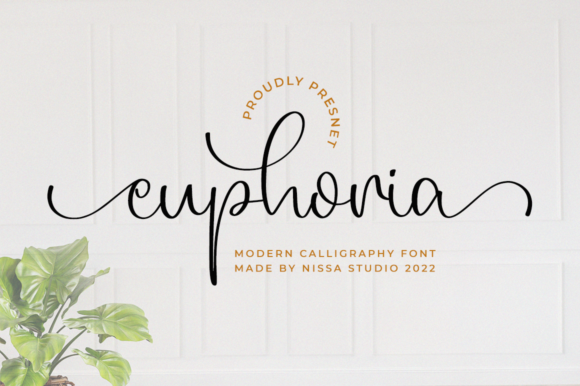
Euphoria Font: Elevate Your Designs with Elegance and Sophistication
In the world of typography, few fonts manage to strike a balance between elegance and distinctiveness. Euphoria Font is one such gem that has captured the hearts of designers and crafters alike. This beautiful, handwritten font is perfect for adding a touch of sophistication to various design projects, from wedding invitations to business cards. In this article, we’ll dive into the features and benefits of Euphoria Font, and explore how it can elevate your designs.
The Beauty of Euphoria Font
Euphoria Font is an elegant handwritten font that exudes a sense of luxury and refinement. Its flowing lines and curves create a stunning visual effect that is sure to leave a lasting impression. The font’s unique character set and swashes make it perfect for designs that require a customized touch. Whether you’re working on a wedding invitation, a thank you card, or a logo, Euphoria Font is sure to add a touch of sophistication and elegance.
One of the standout features of Euphoria Font is its versatility. It can be used on a wide range of design projects, including:
- Thank you cards and greeting cards
- Quotes and posters
Wherever you need to add a touch of elegance and sophistication, Euphoria Font is the perfect choice.
Why Choose Euphoria Font?
So why choose Euphoria Font over other fonts? Here are just a few reasons:
- Elegance and sophistication: Euphoria Font adds a touch of luxury and refinement to any design project.
- Versatility: It can be used on a wide range of design projects, from wedding invitations to business cards.
- Unique and distinctive: Euphoria Font stands out from other fonts, making your designs truly unique.
Tips for Using Euphoria Font
Here are a few tips for using Euphoria Font in your designs:
- Pair it with a simple background: Euphoria Font looks stunning on its own, so pair it with a simple background to make it stand out.
- Experiment with colors: Try out different colors to see what works best with Euphoria Font.
- Use it sparingly: While Euphoria Font is beautiful, it can be overwhelming if used too much. Use it sparingly to add a touch of elegance to your designs.
Euphoria Font is a stunning, elegant handwritten font that is perfect for designers and crafters looking to add a touch of sophistication to their designs. With its versatility, PUA encoding, and unique character set, it’s the perfect choice for a wide range of design projects. Whether you’re working on a wedding invitation, a logo, or a business card, Euphoria Font is sure to elevate your designs and leave a lasting impression.